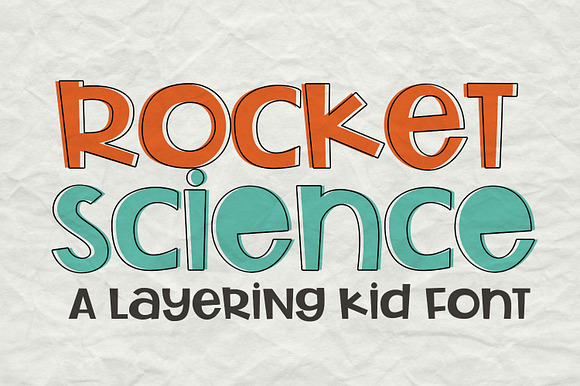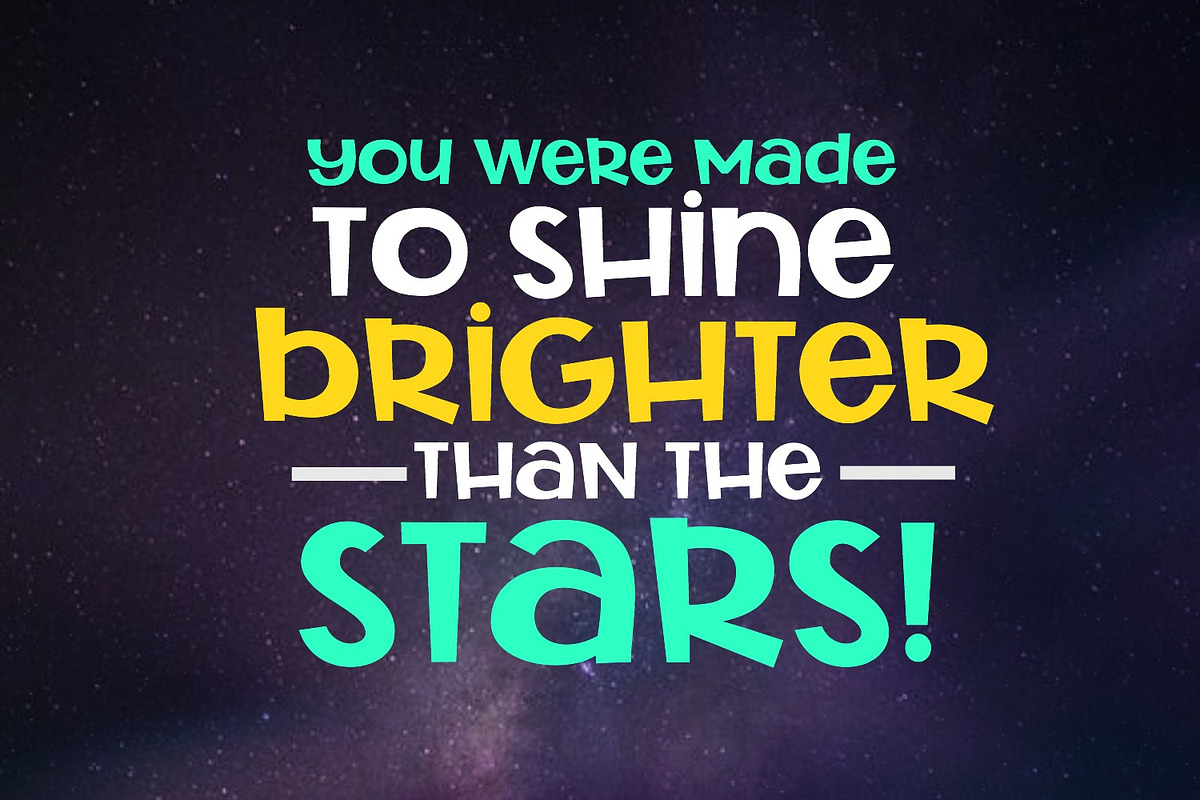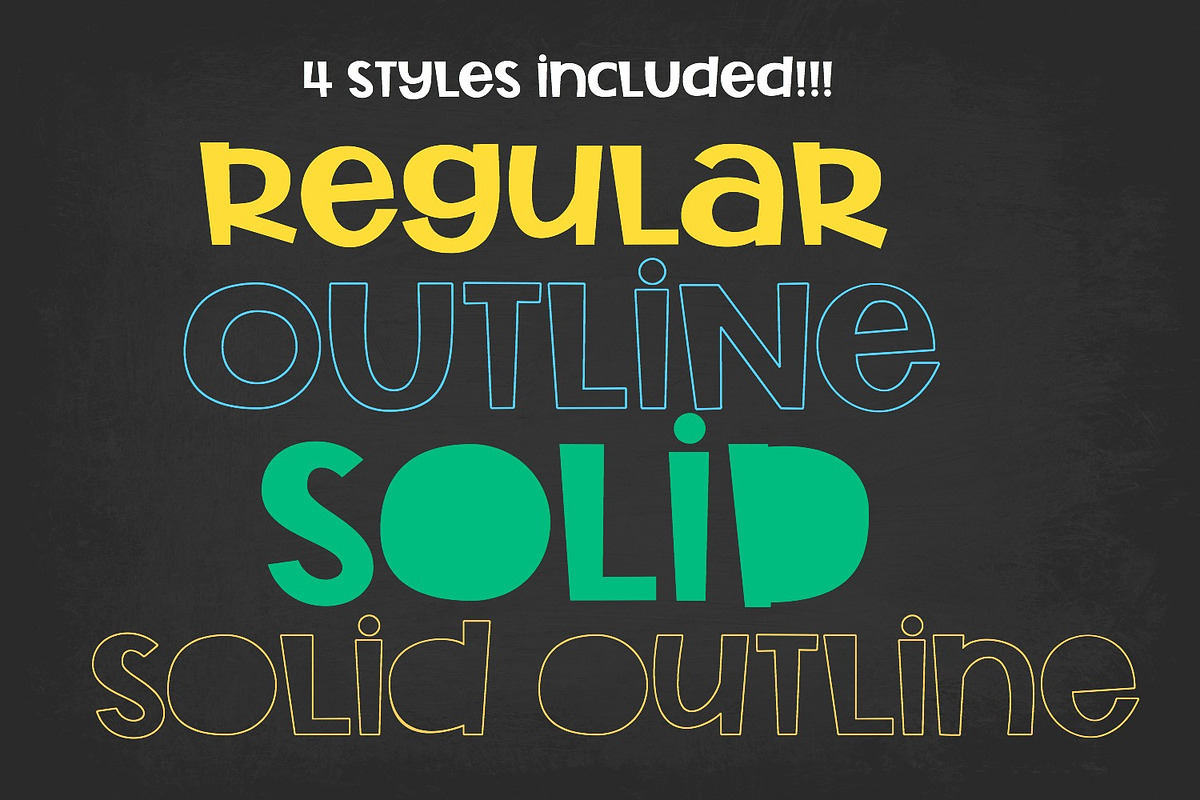
Rocket Science Layering Font
Introducing Rocket Science! This adorable font is incredibly versatile for the funnest designs. It comes in four styles: Regular, Solid, Outline Regular and Outline Solid. Each style is available in Open Type and True Type formats.
I've made this font as smooth as possible for optimal cut performance with Cricut and Silhouette machines, so it is a great font choice for labeling kids school supplies, back packs or other personal items!